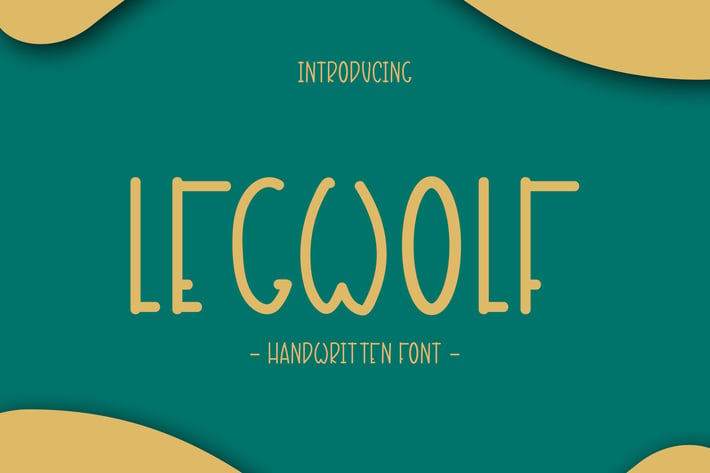
Legwolf - Handwritten Font
Legwoft is a handwritten font. Fall in love with its incredibly versatile style and use it to create beautiful designs!
It’s a great font for fashion, apparel projects, signature, album cover, logo, branding, magazine, social media, & advertisements, but also works great for other projects. Fall in love with its incredibly versatile style and use it to create beautiful designs!
Highlight :
- Basic Latin A-Z and a-z
- Numbers
- Symbols